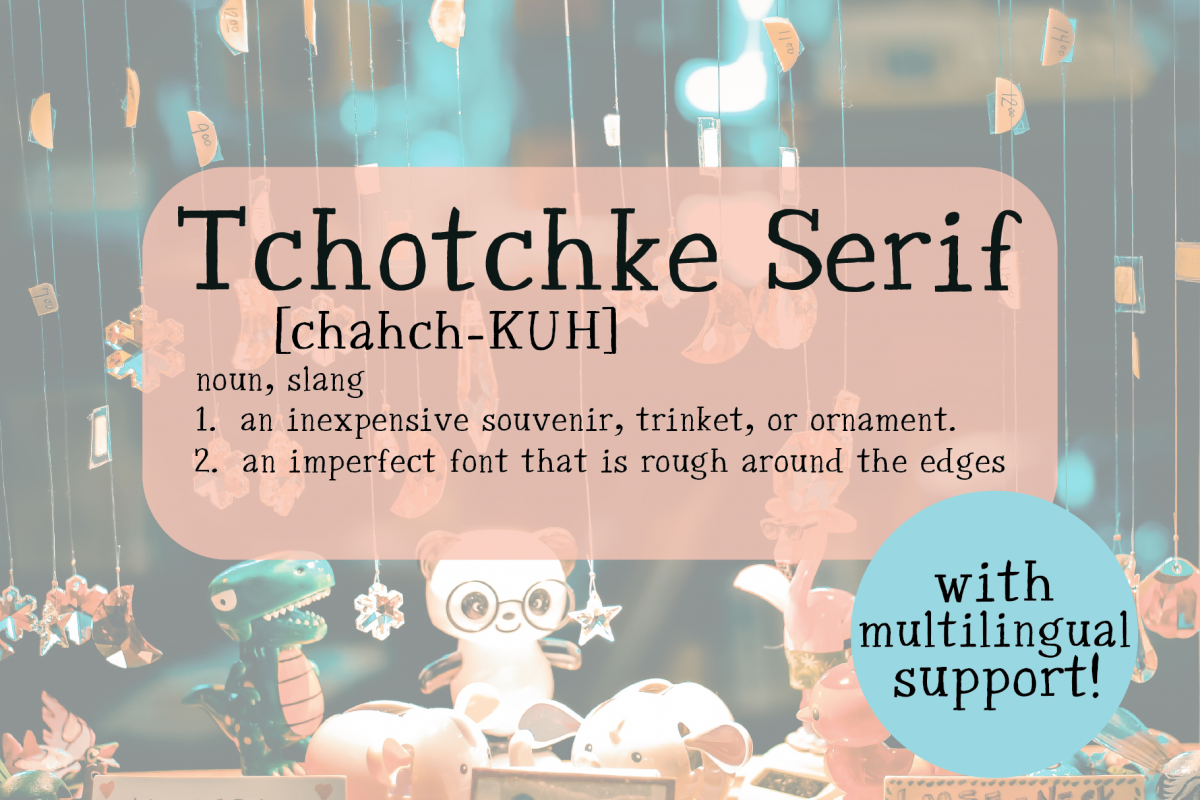
Introducing Tchotchke Serif, an imperfect font that is rough around the edges.Tchotchke Serif contains multilingual support with accented characters for international (Western European, Central European and South Eastern European) users. Tchotchke is the perfect font for your next branding project for a client, or personal project for yourself!